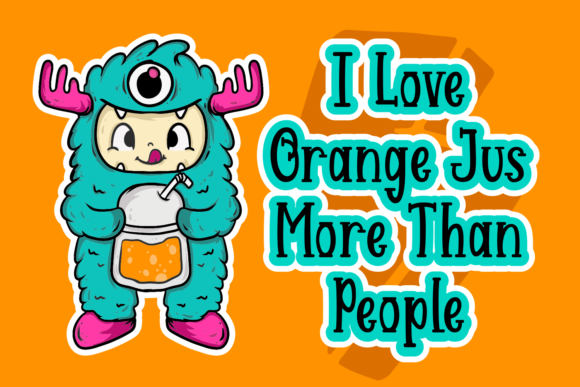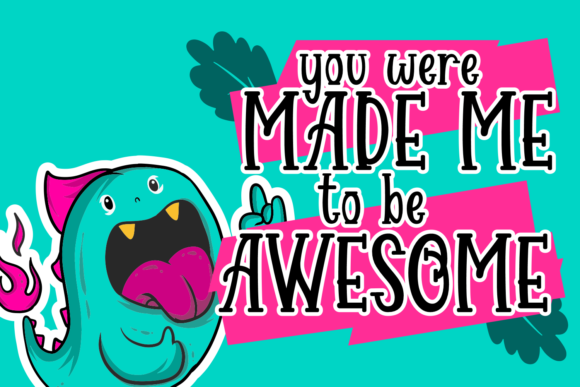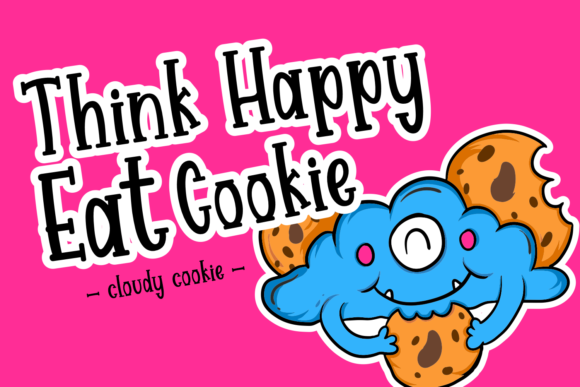
Introduction to Monster Sweetness Font
This cute hand crafter serif funt is playful and great for titles and headlines.
It’s elegant and very legible Making it great for kids-related designs such as birthday invites, and much more.
Why Choose Monster Sweetness Font?
Monster Sweetness Font offers exceptional quality and versatility, making it a valuable addition to your design toolkit. Whether you’re creating for personal projects or commercial use, Monster Sweetness Font delivers professional results.